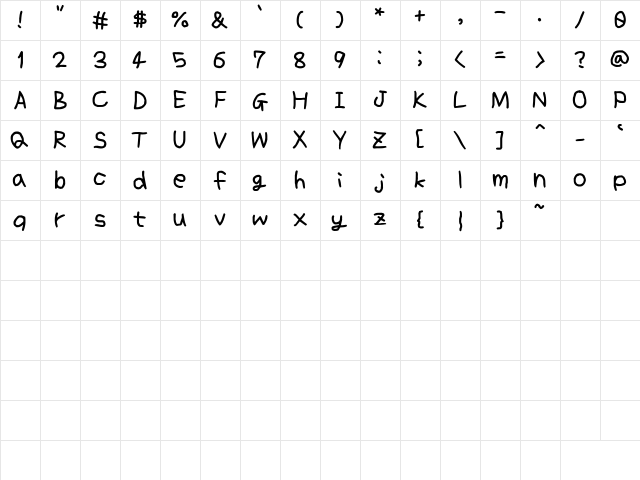
Childish Alpha Regular Font Preview
Childish Alpha Regular
Design Context for Childish Alpha Typeface
Childish Alpha has an approachable, lighthearted character — its loose, expressive forms are well-suited to children's content, casual branding, and fun-first design.
Font Pairing: Pairs well with a rounded or humanist sans for body copy, maintaining the friendly tone without relying on Childish Alpha to carry extended reading.
Pro Tip: Avoid using Childish Alpha for long passages of text — it works best for headlines, labels, and short calls to action.